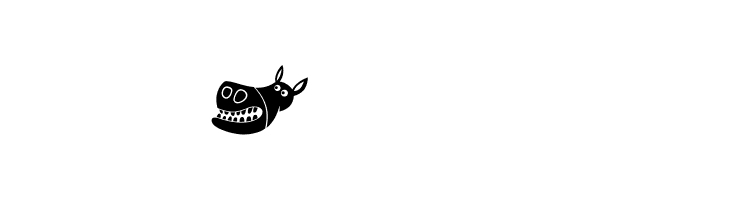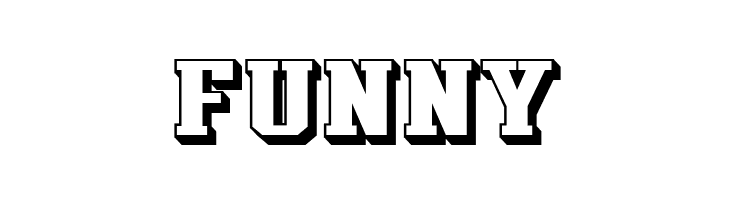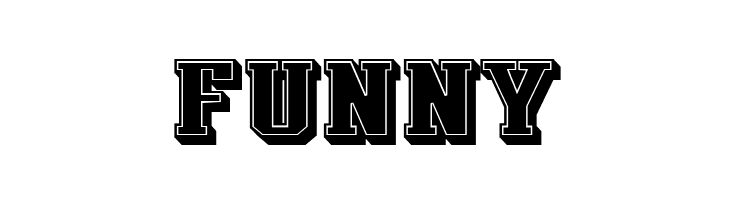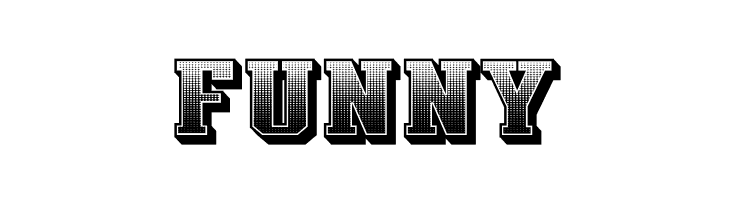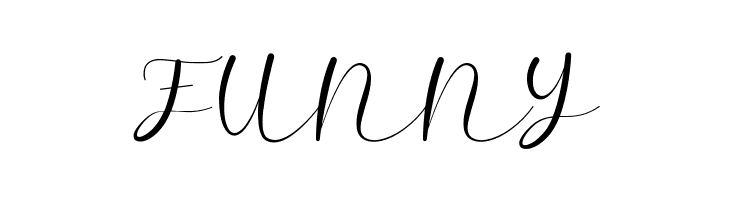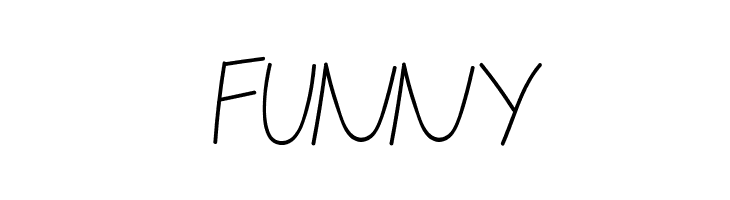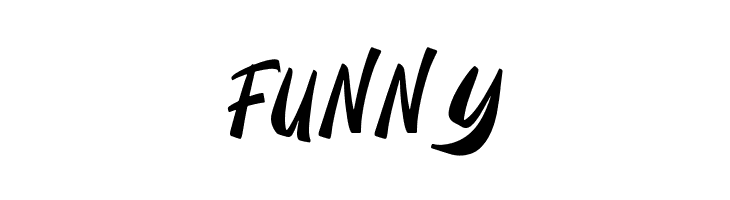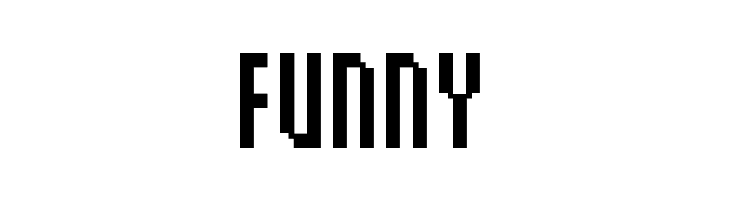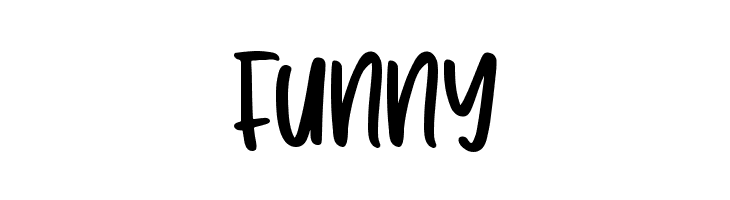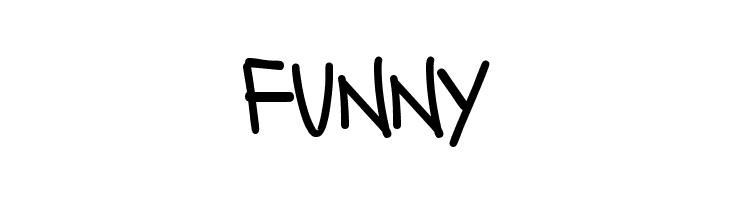
A decorative silhouette font using human figures for each character.
Silhouette pictograms depicting people in diverse actions.
A bold, elegant calligraphic font with dynamic, flowing strokes.
A classic calligraphic font with elegant, flowing lines and refined aesthetics.
A classic calligraphic serif font with elegant, sweeping strokes.
A classic serif font with elegant curves and a strong presence.
Bold, blocky font with a three-dimensional, collegiate style.
A bold, hollow, geometric font with strong outlines and blocky characters.
A bold, decorative font with a 3D effect and dotted texture.
A bold, flowing script font with dynamic curves and expressive style.
A bold, vintage typewriter-style slab serif font with a rugged, mechanical feel.
A decorative font with a segmented, silkworm-like design.
A whimsical and playful font with curvy, flowing lines and expressive loops.
A bold, playful script font with a handwritten style.
A bold, expressive script font with fluid, interconnected strokes and a brush-like texture.
A dynamic brush script font with fluid, cursive strokes and a handwritten appearance.
A playful, casual handwritten font with smooth, rounded edges.
A high-contrast, elegant serif font with sharp serifs and a sophisticated style.
A dynamic, cursive script font with a lively, handwritten style.
A graceful and elegant script font with flowing, interconnected letters.
A playful, handwritten-style font with a casual and dynamic appearance.
A dynamic and expressive script font with fluid, flowing letterforms.
A fluid and elegant handwritten font with a dynamic, flowing style.
A playful, blocky font with a pixelated, digital appearance.
A playful font with cartoon donkey heads as characters.
Playful handwritten font with a whimsical style.
A playful, handwritten font with bold, rounded strokes and a casual feel.
An elegant, flowing script font with a cursive, handwritten style.
A playful, expressive handwritten font with fluid, dynamic strokes.